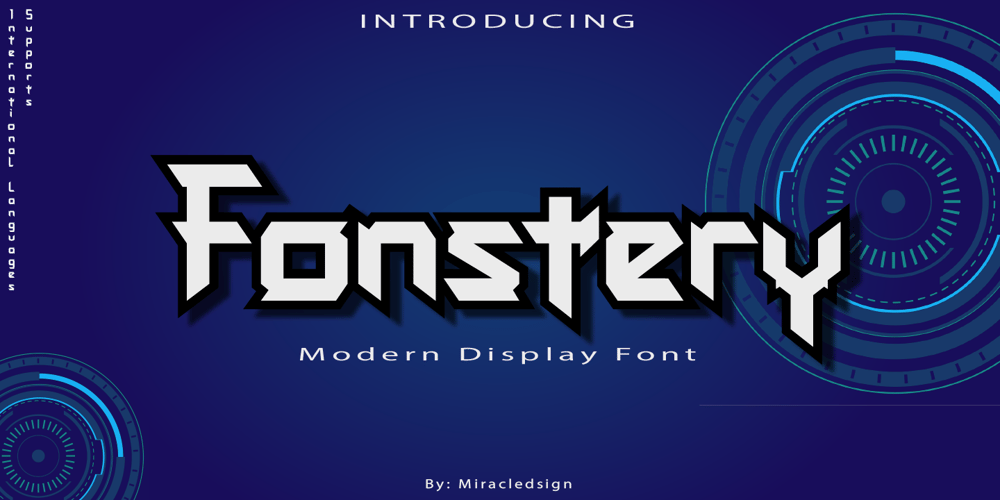
Fonstery Font Family was designed by Anton Septiawan and published by Miracledsign. Fonstery contains 2 styles and family package options. Fonstery is a font that is inspired by modern life with all the sophistication and excellence in the field of technology that makes fontstery very elegant and modern with style and full of future accents.Fonstery is formed and made by combining the contours and anatomy of a strong and sharp letter by highlighting the modern side so that it has extraordinary value when used in a template, game font, or your selling product which of course will be very interesting for those who see it and will certainly make the product. you look more elegant, modern and will add value to your product and add value to your product.